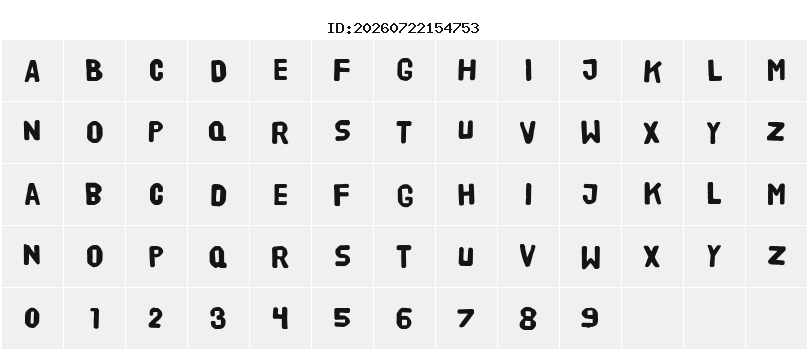
• Font Name: HVD Poster Clean
• Designer: Hannes von Dšhren
About HVD Poster Clean.ttf
HVD Poster Clean.ttf is a modern, elegant sans-serif font designed for ultimate readability and visual harmony. Perfect for branding, headlines, web design, and print materials.